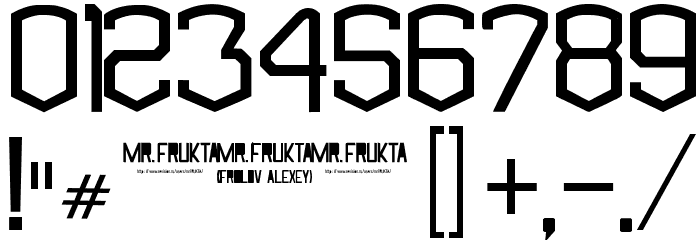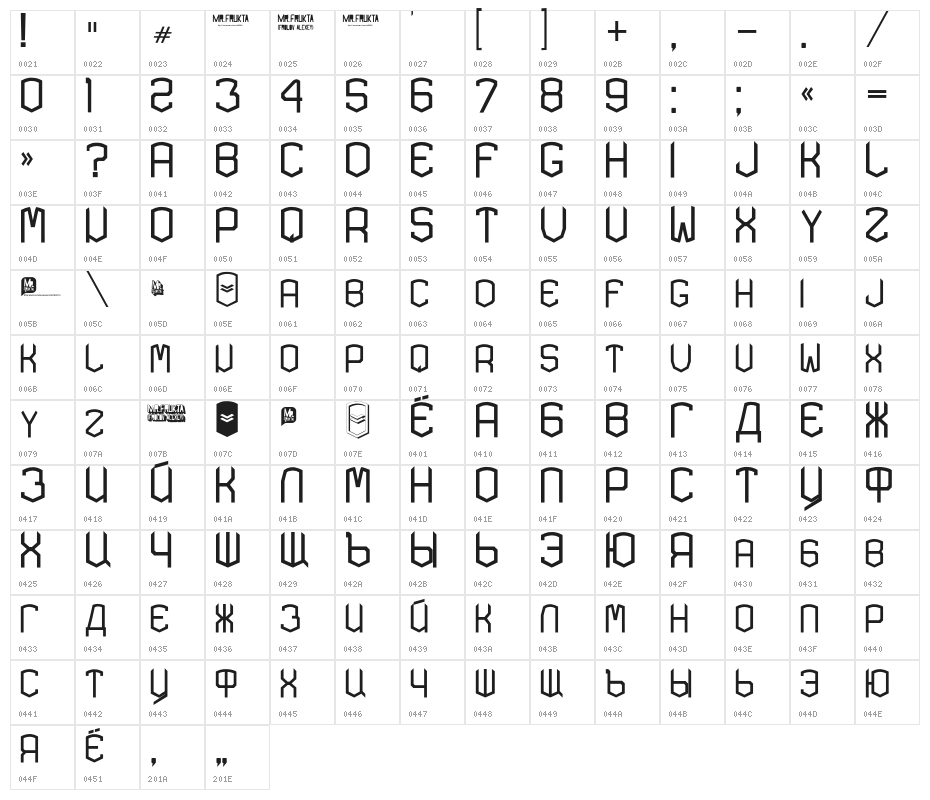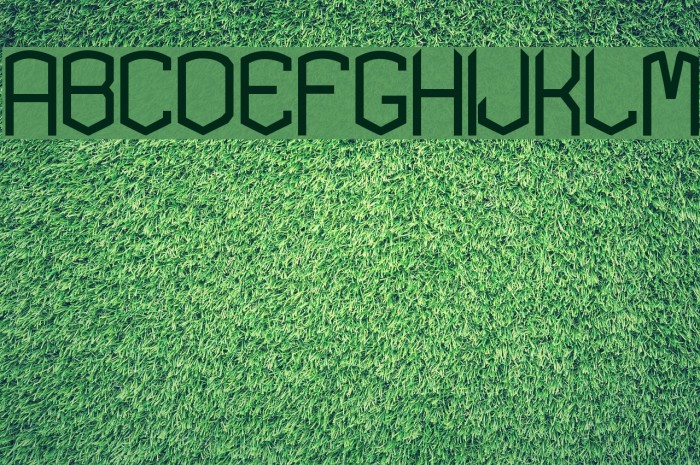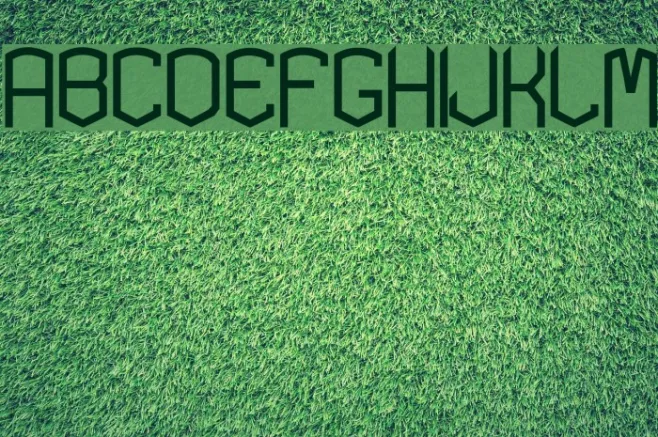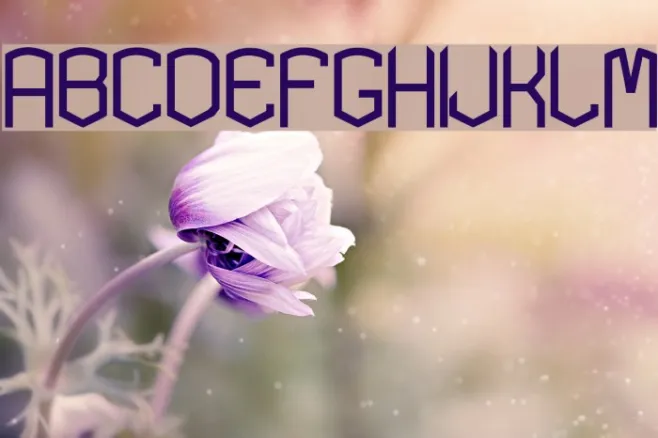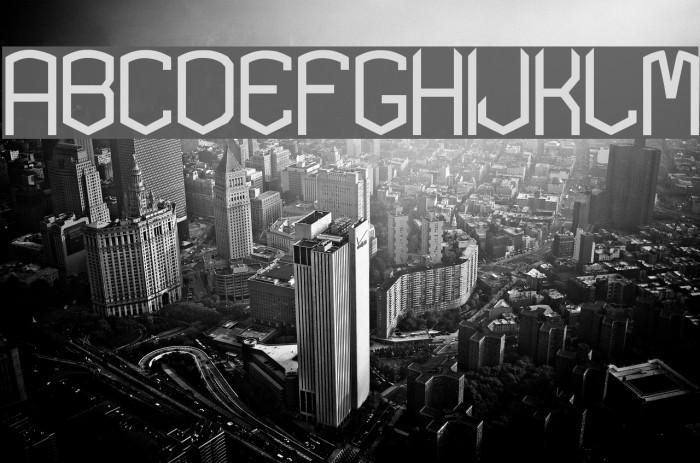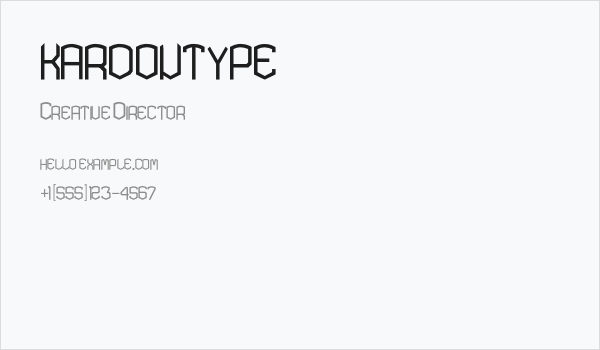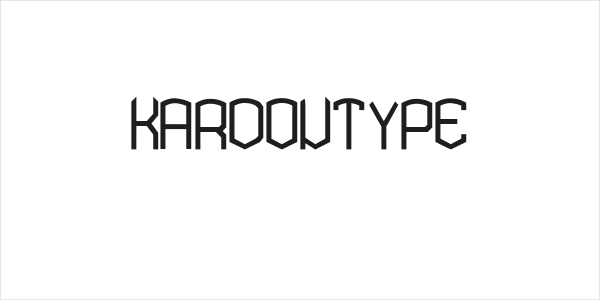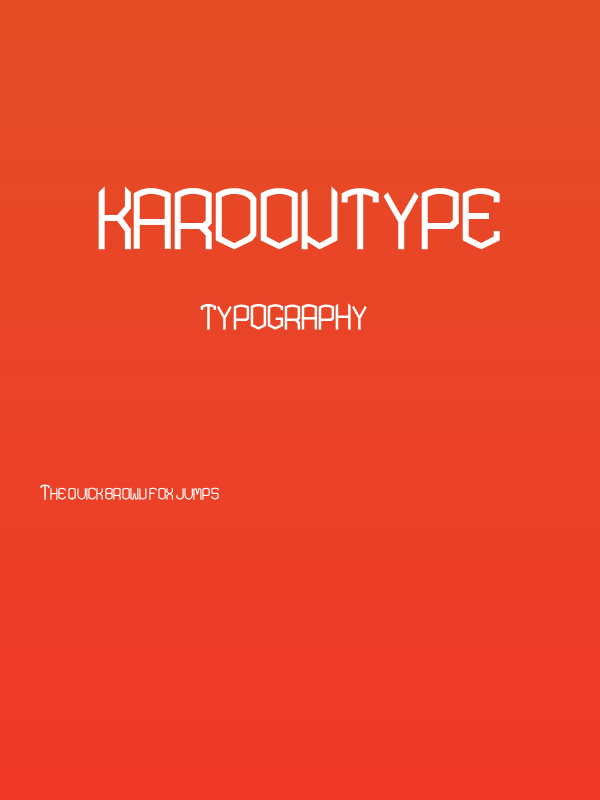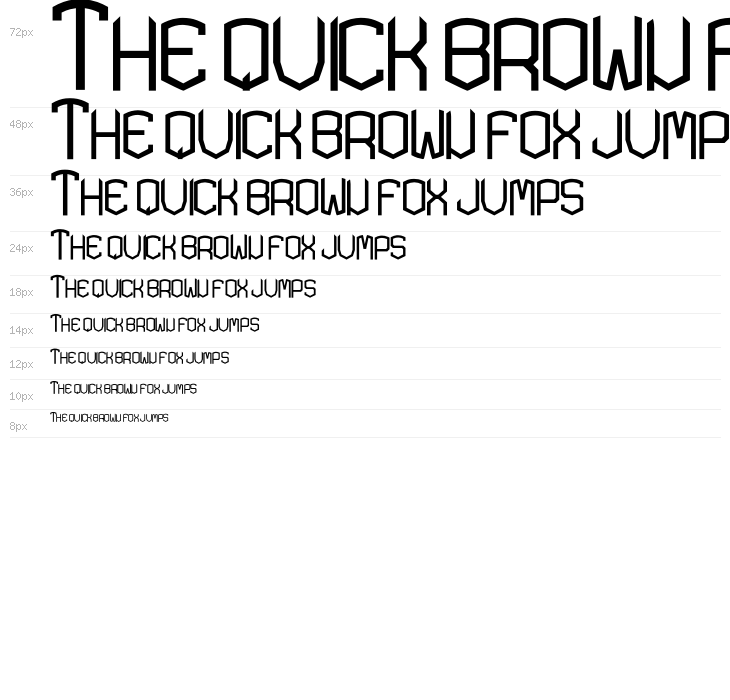
KARDONTYPE Font
KARDONTYPE Description
This font features a bold, geometric design with sharp angles and a futuristic aesthetic. The characters are constructed with consistent line thickness, creating a uniform and cohesive appearance. The uppercase letters exhibit a strong presence, while the lowercase letters maintain the same angular style, ensuring readability. Numbers and special characters are crafted with the same attention to detail, making them suitable for a variety of applications. The overall design is modern and distinctive, ideal for projects that require a contemporary and edgy look.
| Proposed Projects | Ideal for branding, posters, album covers, and any project requiring a modern, edgy aesthetic. |